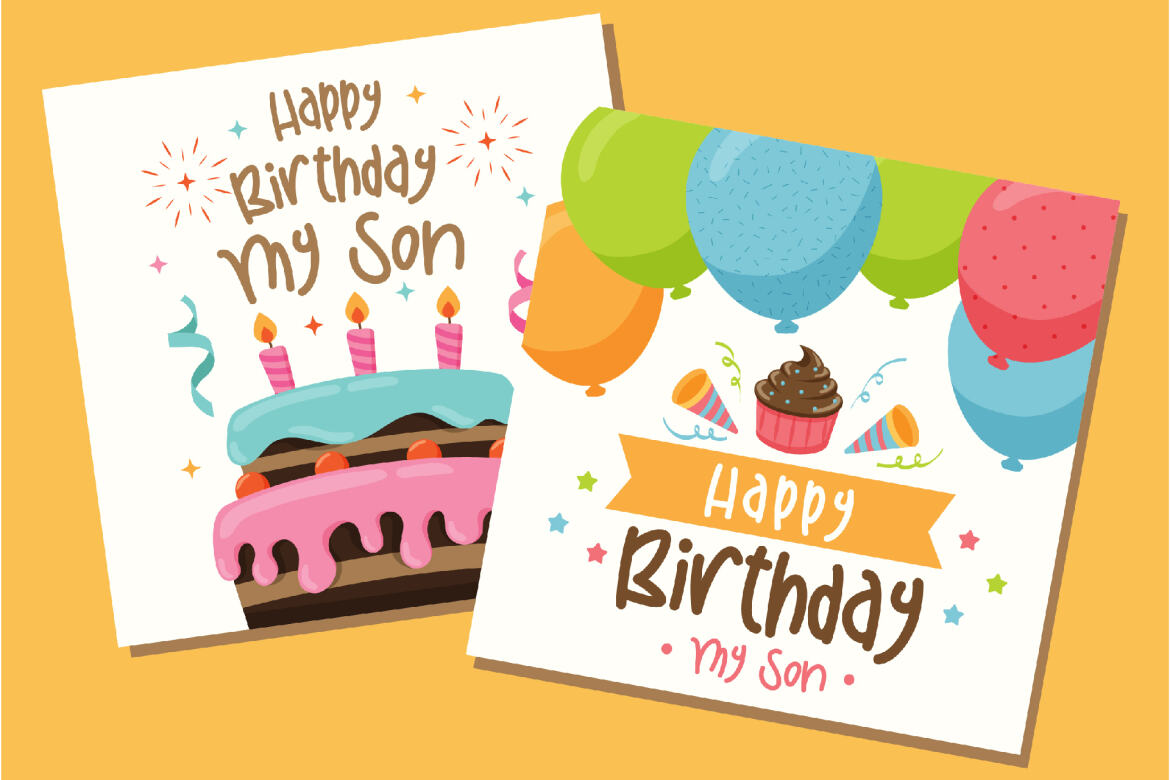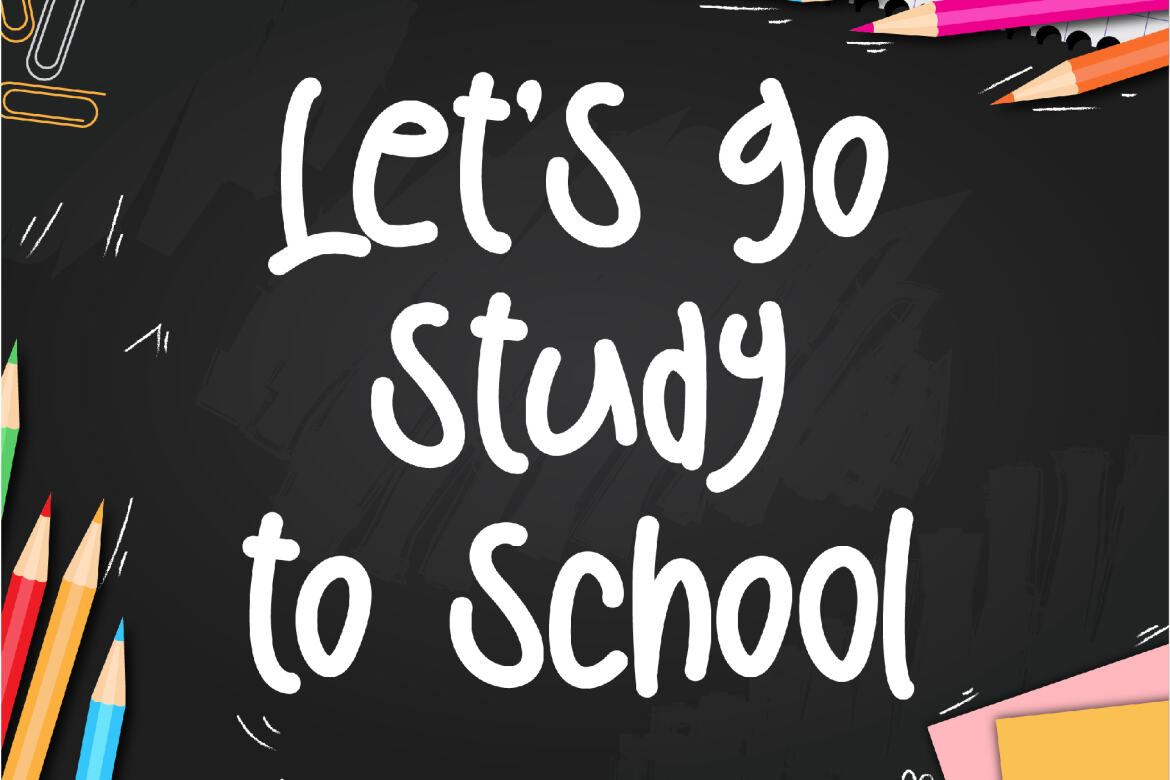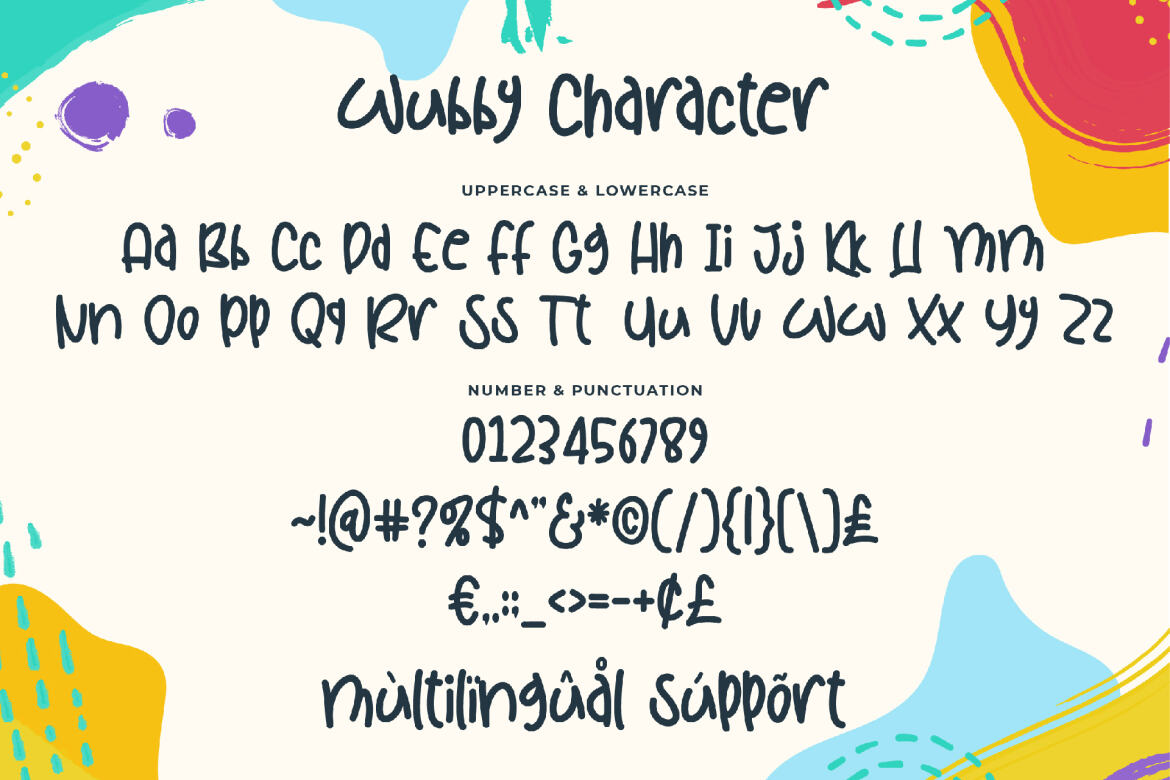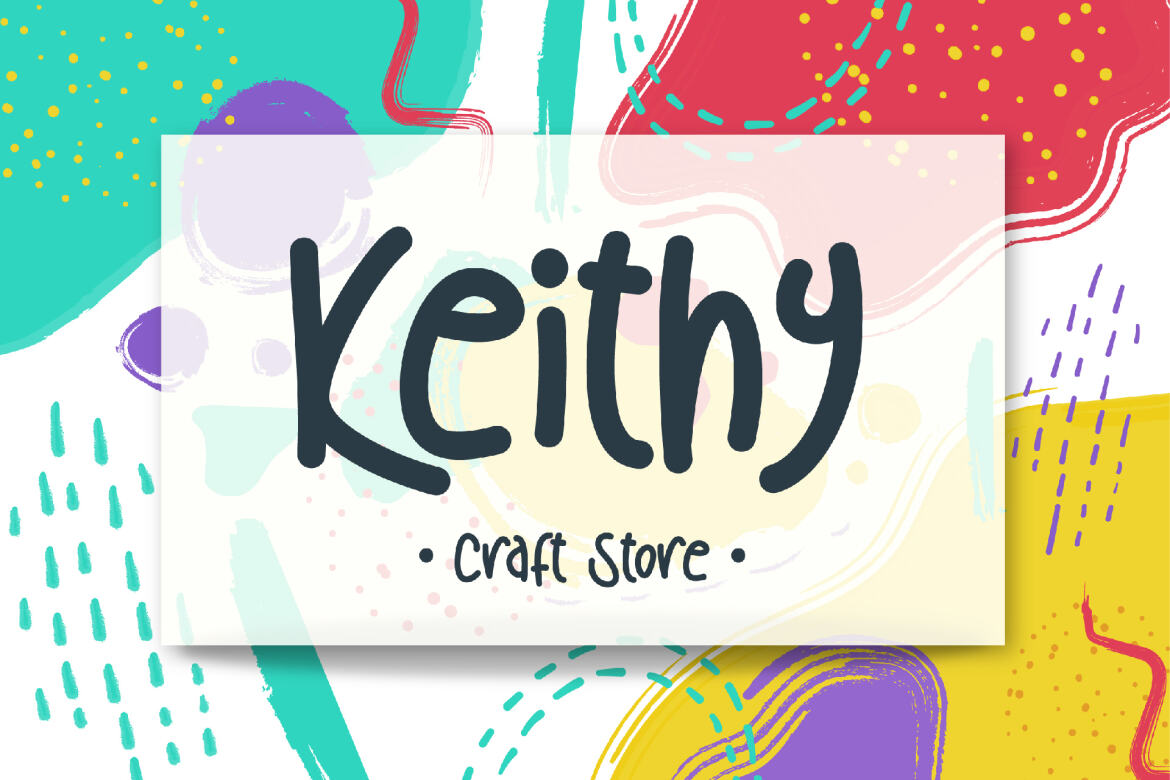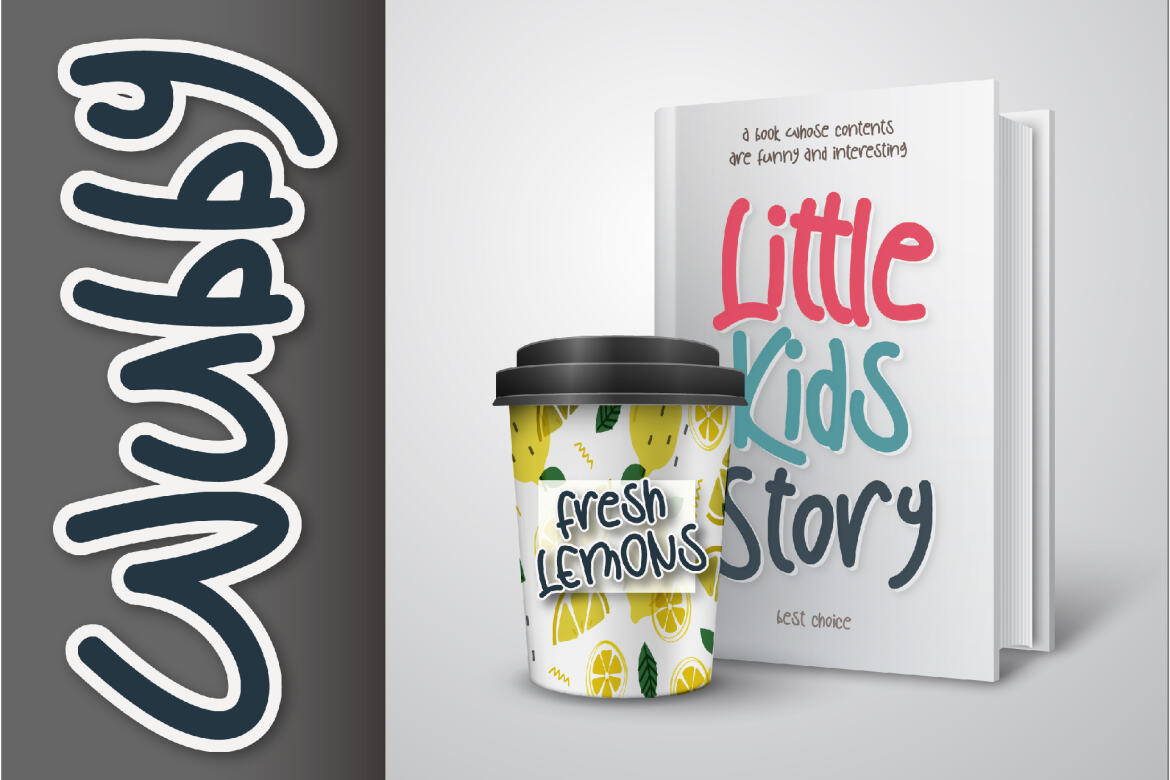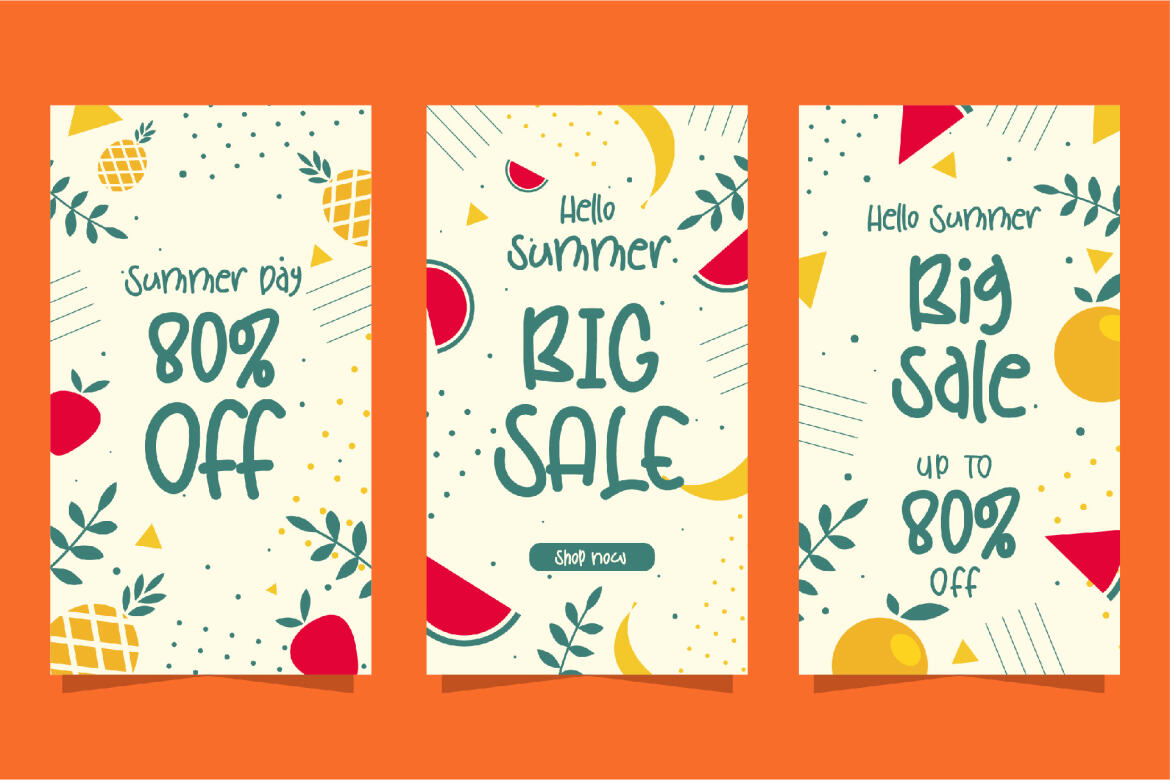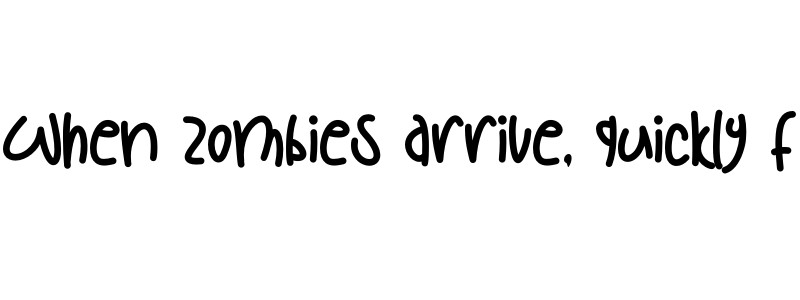
Wubby - a cute & FREE display font
Wubby
Wubby is an cute and playful font. Its clean and a little bit quirky, this font is the best choice. Add it to your creative ideas and notice how it makes them stand out!